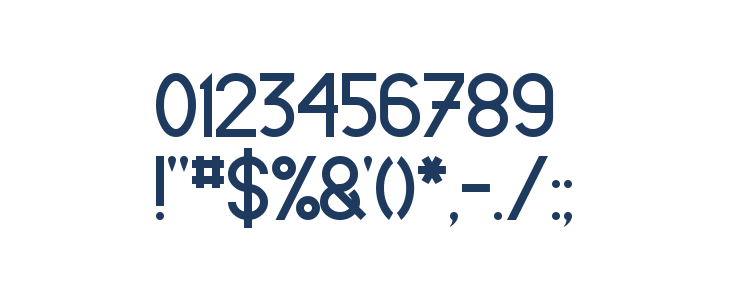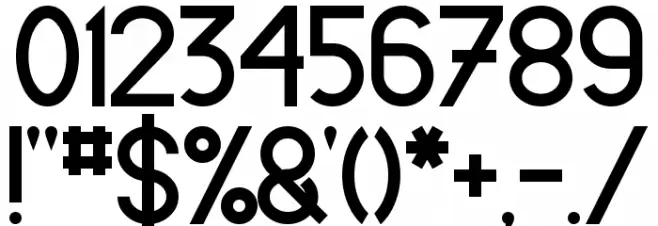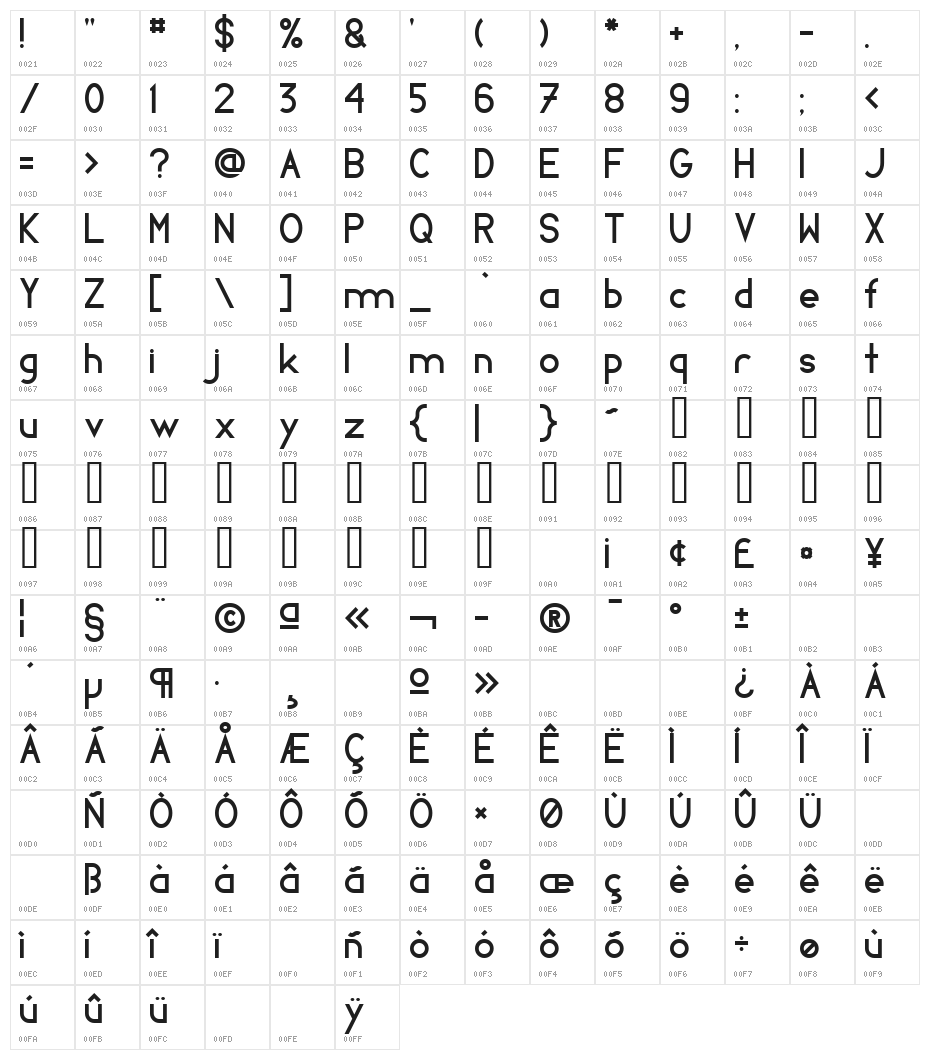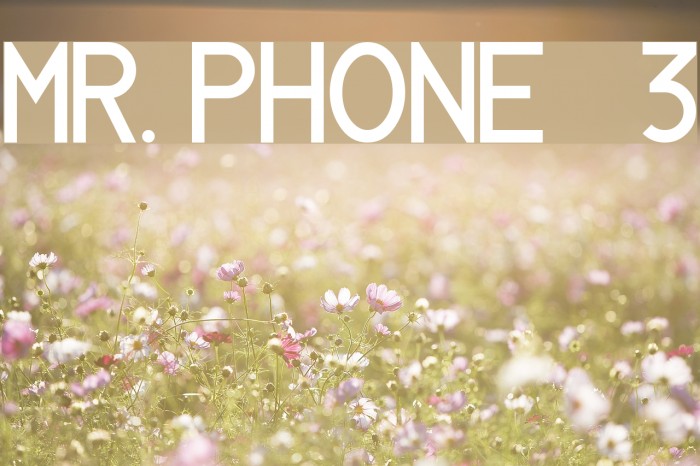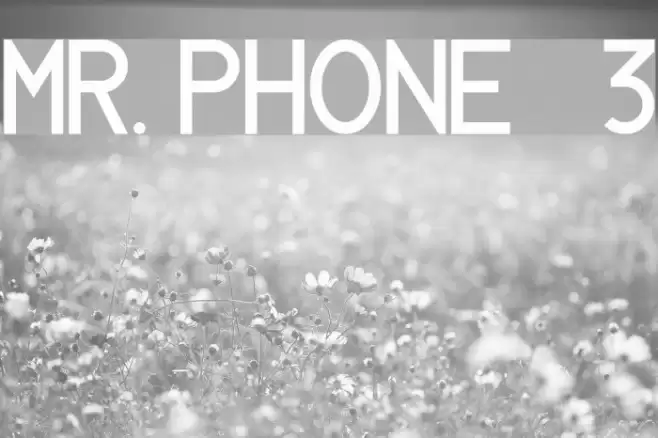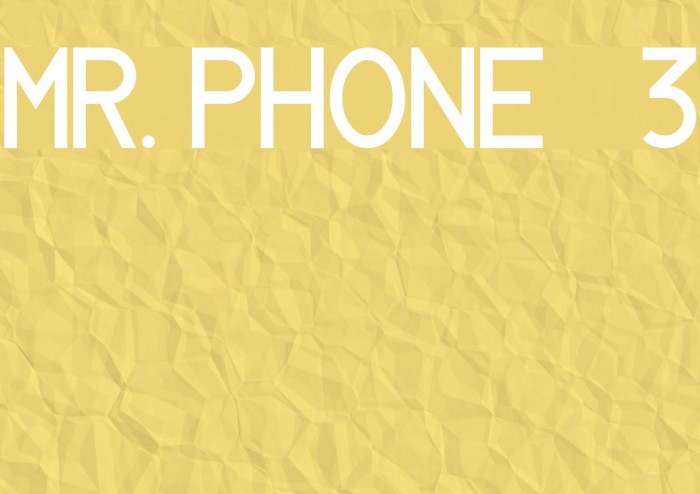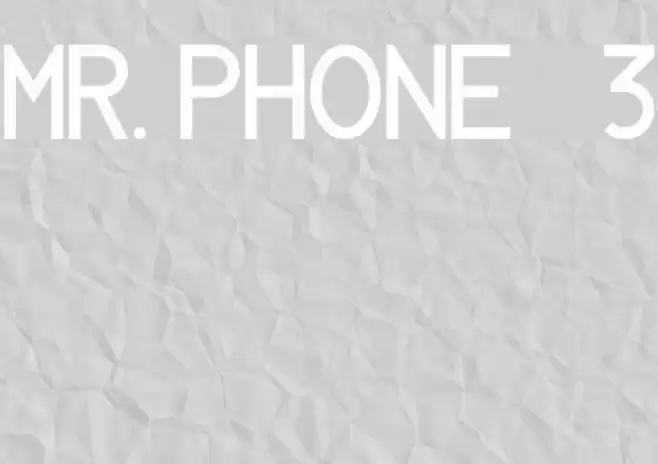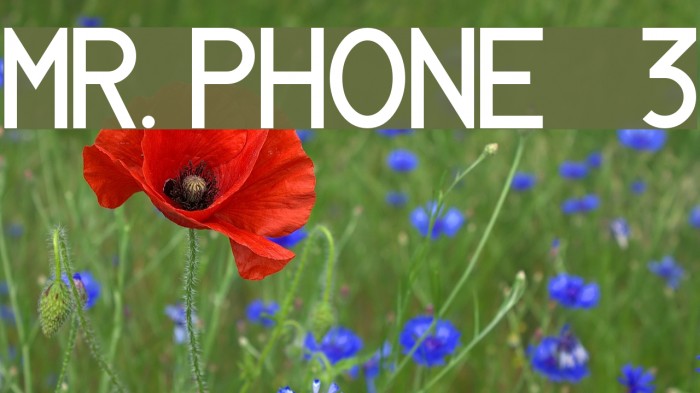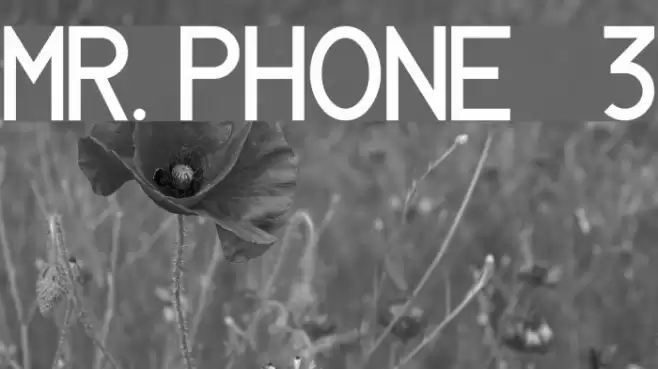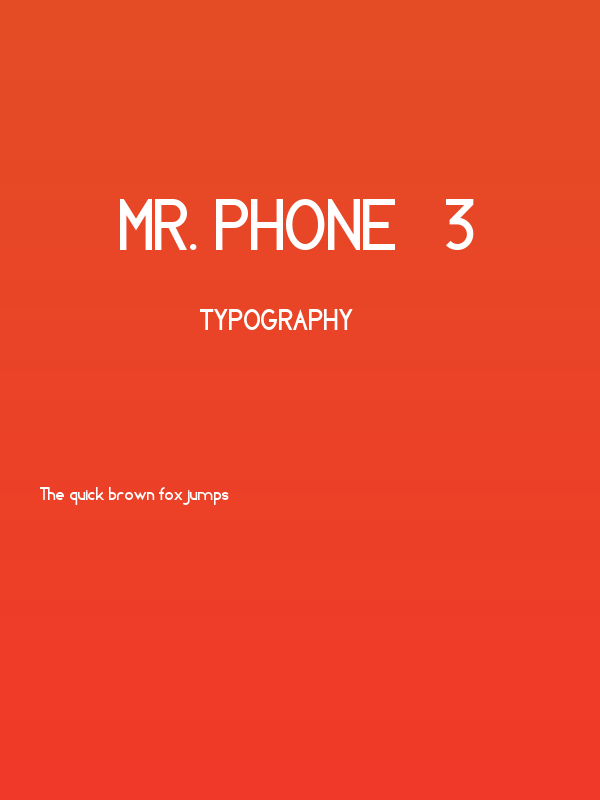
MR. PHONE 3 Font
MR. PHONE 3 Description
This font features a clean and modern design with geometric influences. The characters are well-proportioned and maintain a consistent stroke width throughout, giving it a uniform appearance. The uppercase letters are bold and impactful, while the lowercase letters have a slightly softer, rounded feel. The numerals are clear and easy to read, making them suitable for various applications. Special characters are distinct and maintain the overall aesthetic of the font. This typeface is versatile, suitable for both digital and print media, and can be used in a variety of design projects.
| Proposed Projects | Ideal for branding, advertising, web design, and editorial layouts. |